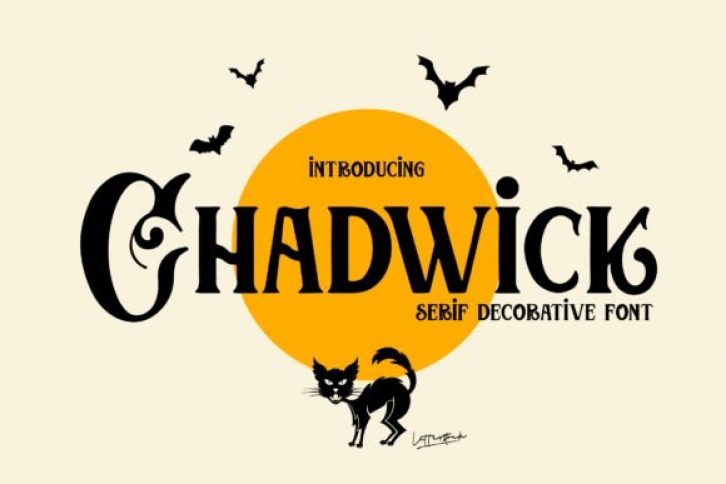
Chadwick is a bold and spooky looking serif font. No matter the topic, this font will be an incredibly asset to your fonts’ library, as it has the potential to elevate any creation.